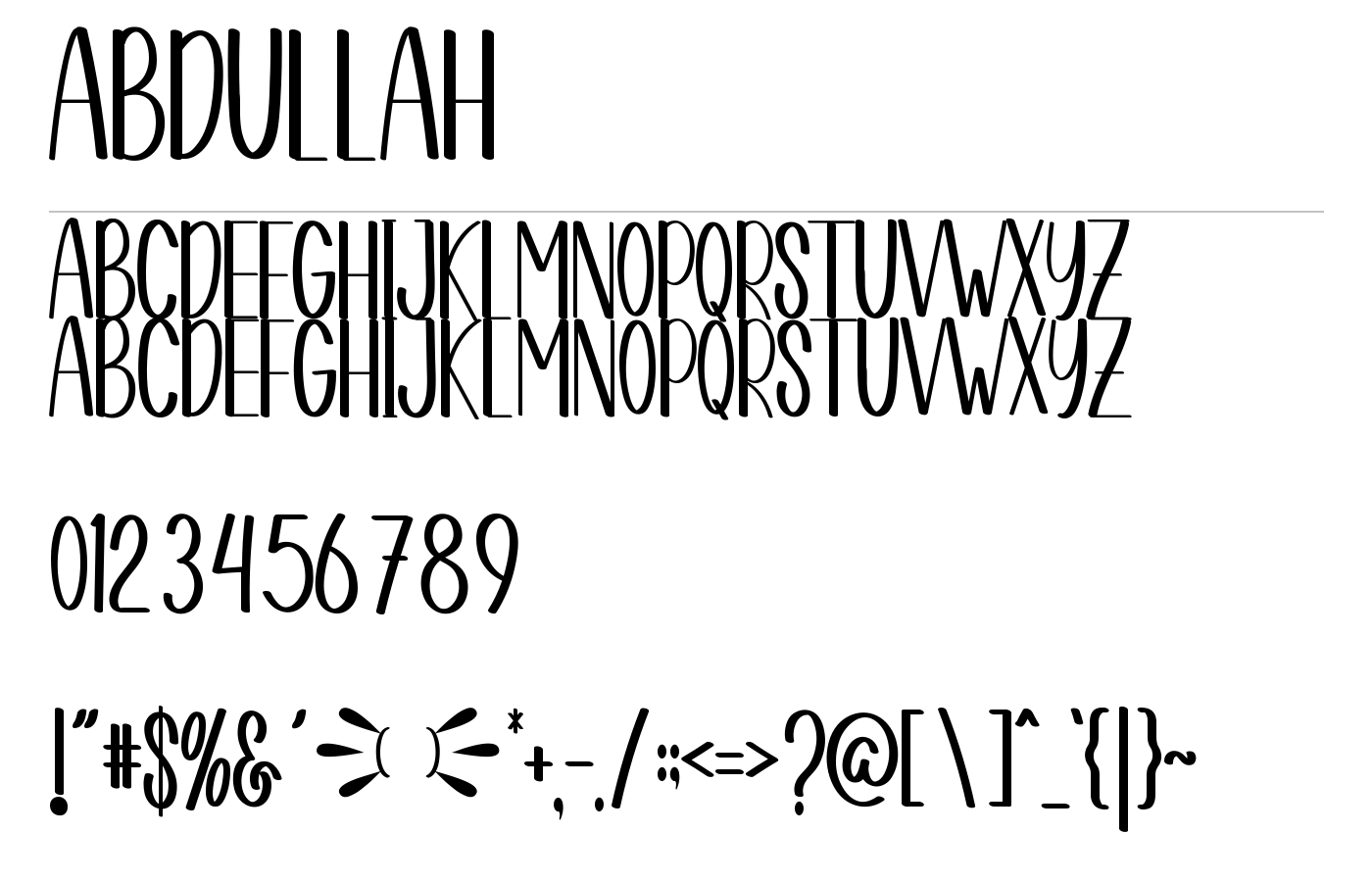
Abdullah Font is a playful and tall sans serif typeface with a narrow width and smooth, rounded strokes that give it a friendly and approachable feel. Its consistent stroke weight and unique, slightly quirky letterforms make it ideal for creative branding, casual headlines, and eye-catching packaging where a fun yet modern vibe is desired. This font works well in designs that want to convey personality and uniqueness without sacrificing legibility.
Abdullah Font
About Abdullah Font